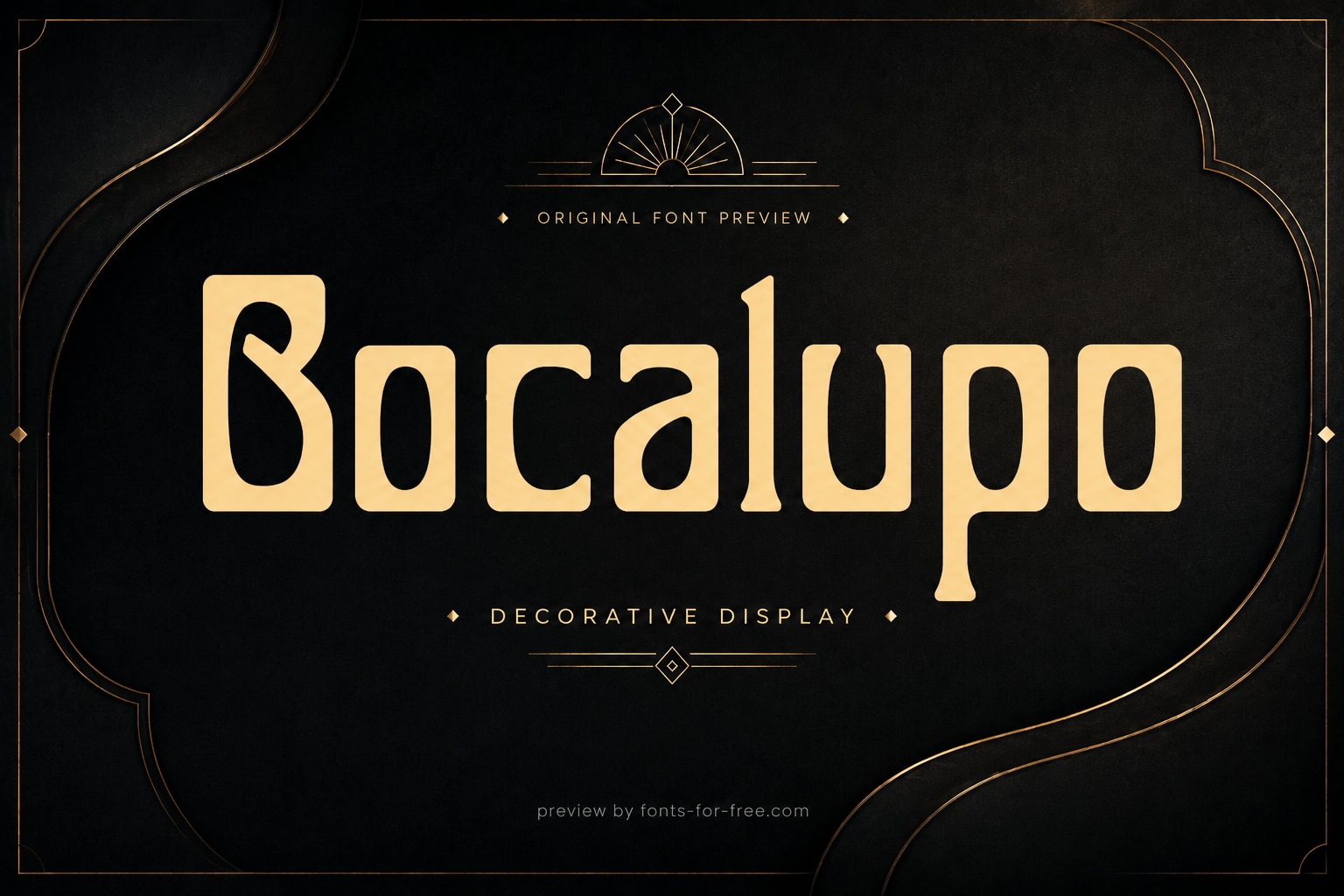
Bocalupo
Bocalupo is a decorative display typeface designed by Ambre Ruggeri, drawn from a wooden type distributed by Tellenbach & Cie. Its forms are heavy, rounded, and upright, with soft block-like stems, large counters, and Art Nouveau details such as curved cuts and unusual internal shapes. The low-contrast strokes give the font a solid rhythm, while the ornamental letter construction gives it a vintage printed character. It reads clearly in large settings but is better suited to short text than long paragraphs. Bocalupo fits posters, titles, labels, packaging, signage, and editorial display work. It is licensed under the SIL Open Font License 1.1.